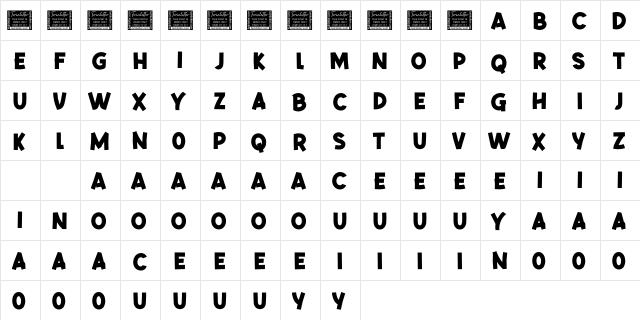
High Mount Personal Use
Design Context for High Mount Typeface
High Mount offers clean, dependable letterforms without strong stylistic allegiance, making it a practical choice for designers who need flexibility.
Pro Tip: Use High Mount in both headline and body roles to test its range before committing to a single application.